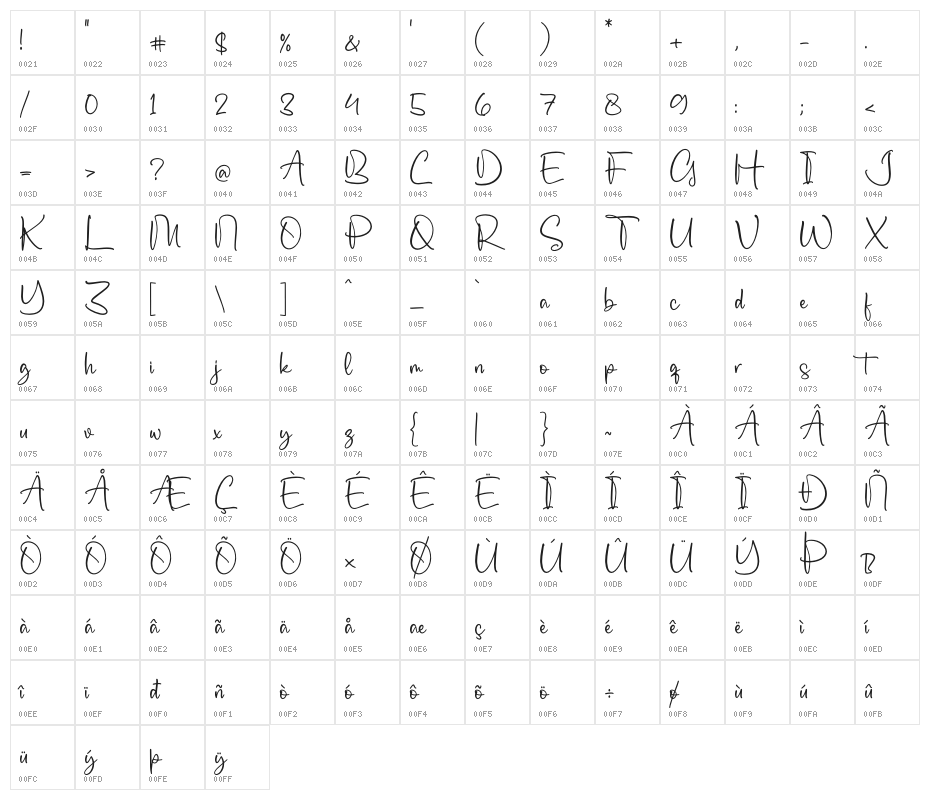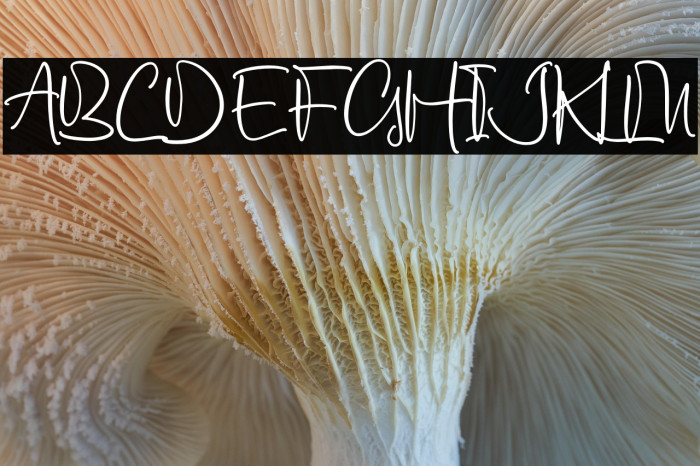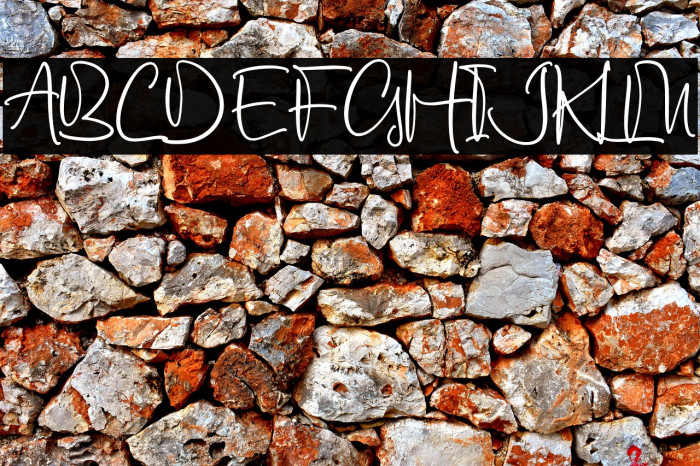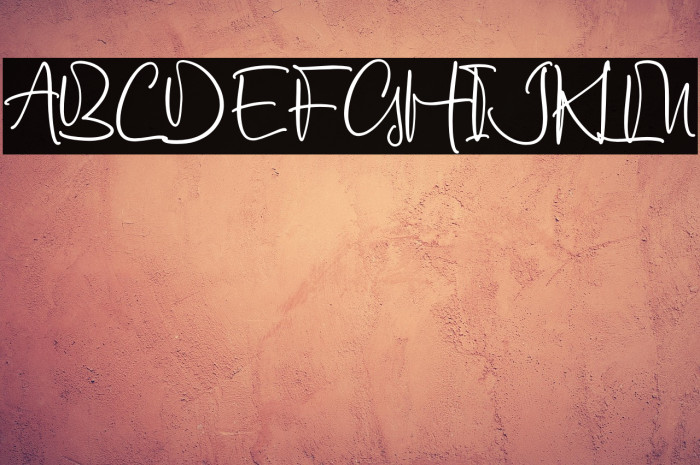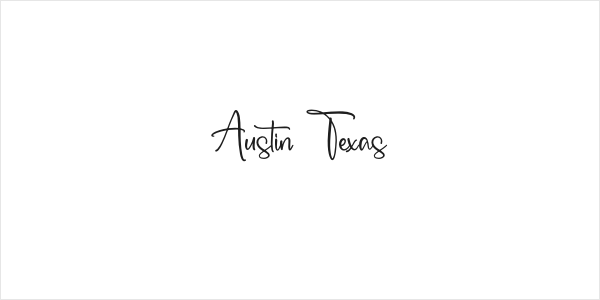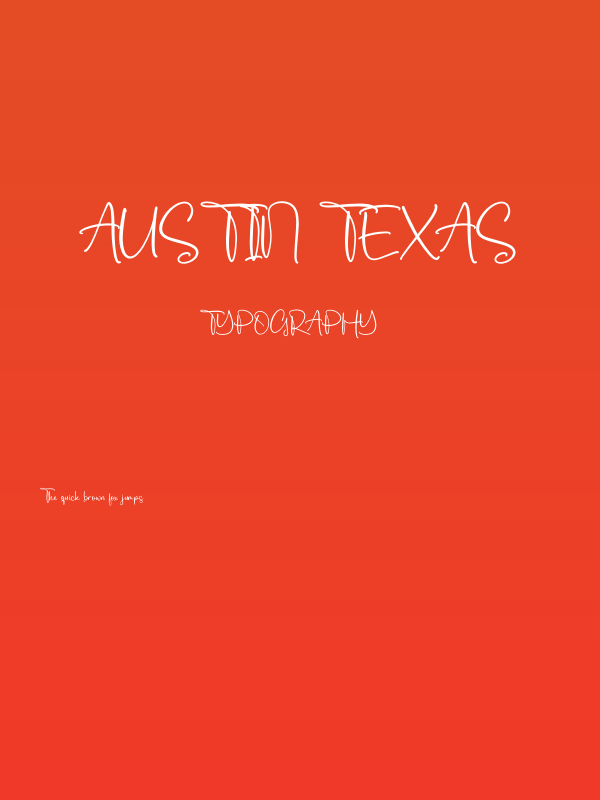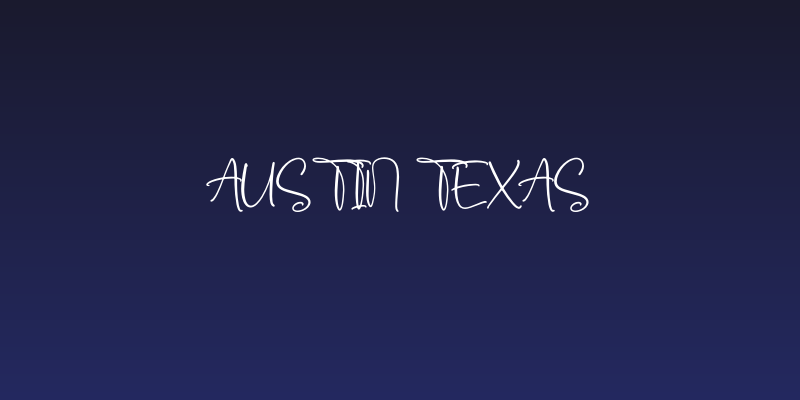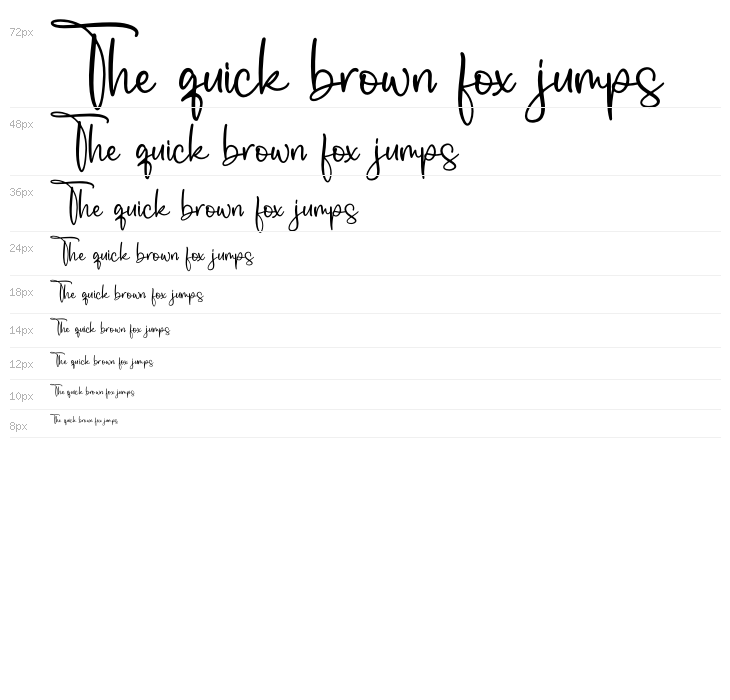
Austin Texas Font
Austin Texas Description
A playful, handwritten script font with a casual and flowing style, featuring irregular strokes and a personal touch.
| Proposed Projects | Greeting cards, invitations, personal branding. |